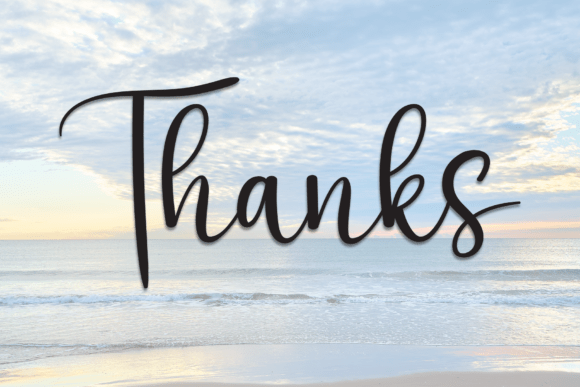
Summer Beach Font
Summer Beach is a graceful handwritten script font that flows with elegance and calm, perfect for wellness branding, invitations, social media quotes, or any design that calls for a soft, personal touch. With its smooth curves and sophisticated flourishes, it brings a sense of peace and beauty to your typography projects.